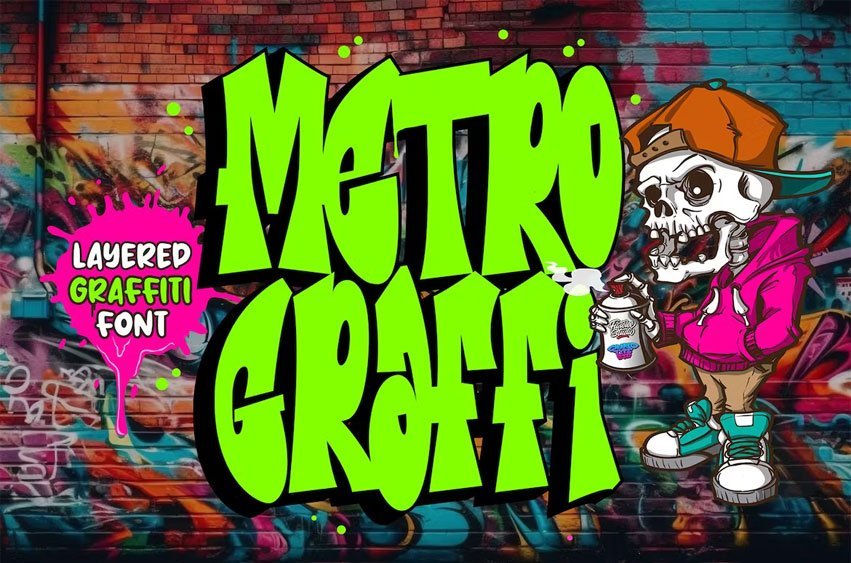
Metro Graffi Font Layered Graffiti Font. Unleash creativity and add depth to your projects with this versatile font that brings the vibrancy of the streets to your fingertips. With multiple layers, each stroke tells a story, giving your text a dynamic and captivating look. Whether you’re designing posters, or logos, Metro Graffi lets you create multi-dimensional art that pops off the page. Elevate your designs and make a statement that’s as bold as the city itself with Metro Graffi Layered Graffiti Font.
- Versatile for branding, headline, or printing product